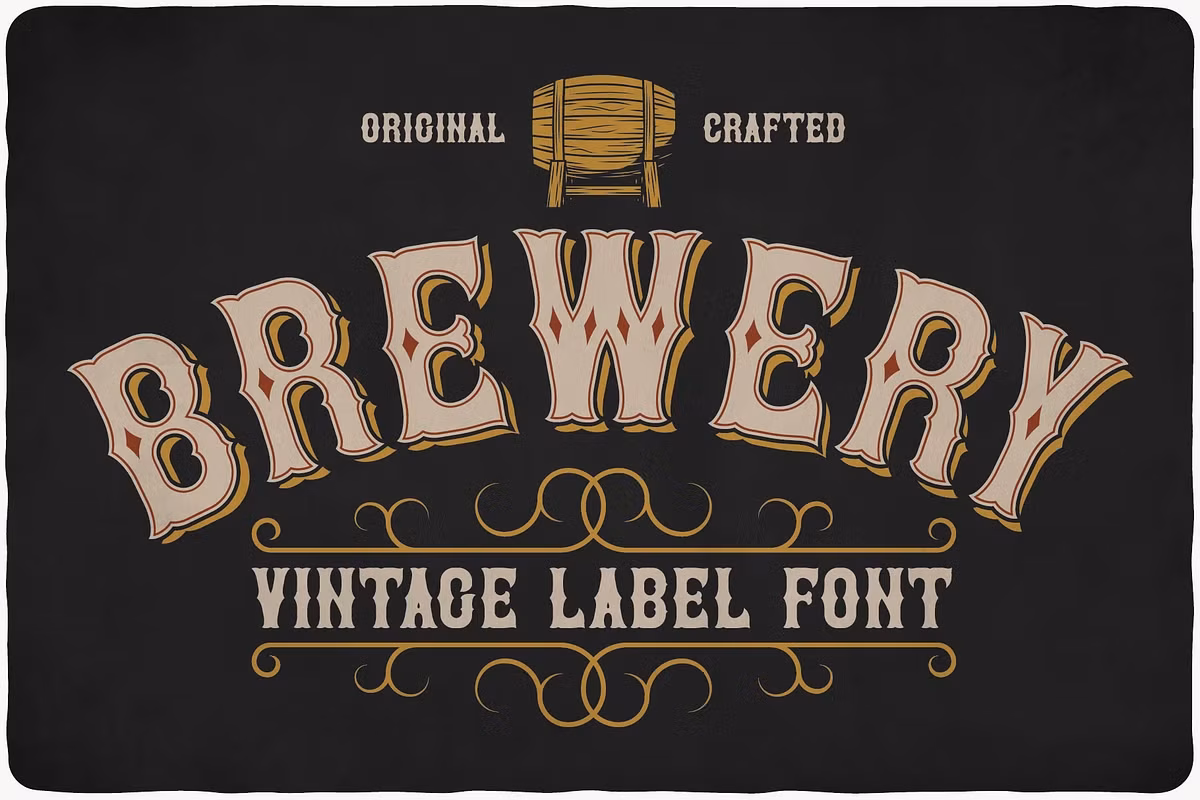
Brewery Font Free Download is a bold, rustic typeface that captures the essence of classic brewery logos and vintage signage. With its strong, sturdy letterforms and hand-crafted feel, Brewery is perfect for beer labels, pub signage, rustic branding, menus, and any design project that requires a touch of handcrafted charm.
This font blends industrial strength with a nostalgic vibe, making it ideal for craft beer brands, restaurants, and other beverage-related businesses. Whether you're designing a logo, a promotional flyer, or creating a rustic-themed website, Brewery adds character and authenticity to your typography.